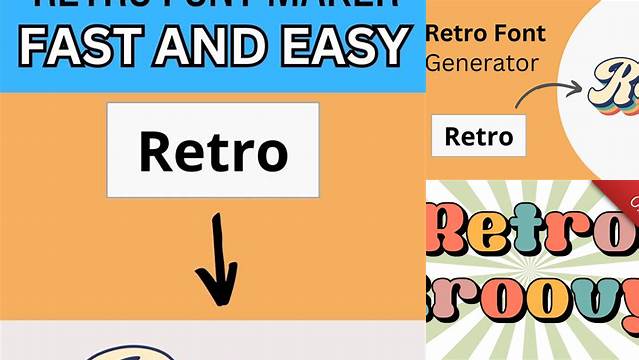
Retro Movie Font Generator: Free Download For Your Projects
Hey guys! Are you looking to add some vintage flair to your projects? A retro movie font can be just the thing to give your designs that classic, nostalgic feel. Whether you’re working on a movie poster, a website, or just want to spice up your social media posts, choosing the right font is crucial. In this article, we’ll dive deep into the world of retro movie fonts, exploring where you can find them, how to use them, and even some free download options to get you started. So, let's get this show on the road and make your projects shine with some retro goodness!
What is a Retro Movie Font?
First off, what exactly is a retro movie font? Well, it's essentially a typeface that evokes the styles commonly used in classic movie posters, title sequences, and promotional materials from the past. Think of the bold, dramatic fonts from the Golden Age of Hollywood or the sleek, futuristic styles of 80s sci-fi films. These fonts often have distinct characteristics like serifs, decorative elements, and a certain weight that makes them stand out. When you use a retro movie font, you're not just choosing a typeface; you're tapping into a whole aesthetic vibe. It's like time-traveling with typography! These fonts help capture the essence of a bygone era, bringing a touch of nostalgia and cinematic charm to your designs. The impact of a well-chosen font can be significant, setting the tone and creating a powerful connection with your audience. Think about the iconic fonts from movies like Star Wars or Psycho; they instantly transport you to those cinematic worlds. The magic of retro movie fonts lies in their ability to evoke specific emotions and memories associated with the films and eras they represent. So, whether you're aiming for a classic Hollywood glamour or a gritty 70s vibe, the right retro font can be your secret weapon. You can even mix and match different retro styles to create a unique and dynamic look. The possibilities are as endless as the movies themselves!
Why Use Retro Fonts for Your Projects?
So, why should you even bother using retro fonts in your projects? There are tons of reasons, actually! For starters, retro fonts have a unique ability to grab attention. They stand out from the sea of modern, minimalist typefaces that are everywhere these days. Using a retro font is like adding a splash of personality and character to your design. It tells a story and evokes emotions, making your work more engaging and memorable. Think about it – when you see a font reminiscent of an old movie poster, it instantly sparks a sense of nostalgia and curiosity. Plus, retro fonts are incredibly versatile. They can be used in a wide range of projects, from branding and advertising to web design and social media graphics. Whether you're creating a vintage-themed poster, a retro logo, or a nostalgic website layout, the right font can make all the difference. The key is to choose a font that fits the overall style and tone of your project. A bold, serif font might be perfect for a classic Hollywood vibe, while a sleek, sans-serif font could be ideal for a futuristic retro look. Using retro fonts can also help you connect with your target audience on a deeper level. Nostalgia is a powerful emotion, and by tapping into it, you can create a strong connection with viewers who appreciate the aesthetics of the past. Moreover, they can add a timeless quality to your work. Unlike trendy fonts that come and go, retro fonts have a classic appeal that never goes out of style. This makes them a great choice for projects that need to have a lasting impact.
Where to Find Retro Movie Fonts Online